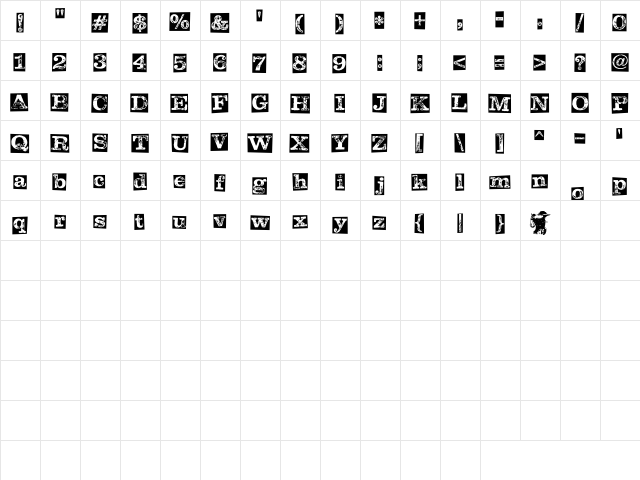
LD Letterpress Inverted Regular
Design Context for LD Letterpress Inverted Typeface
LD Letterpress Inverted is a composed and adaptable typeface that performs quietly and consistently across a wide range of design contexts.